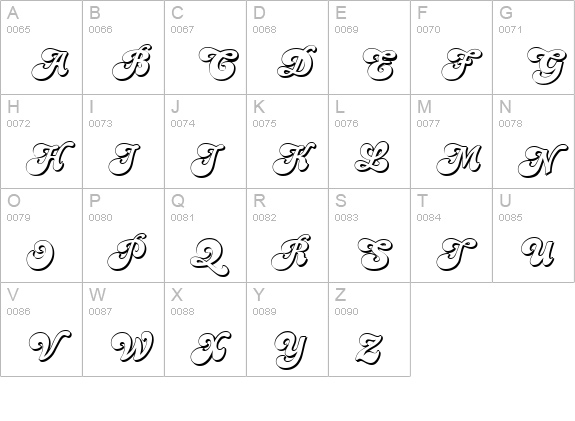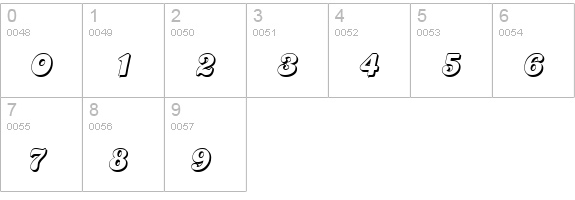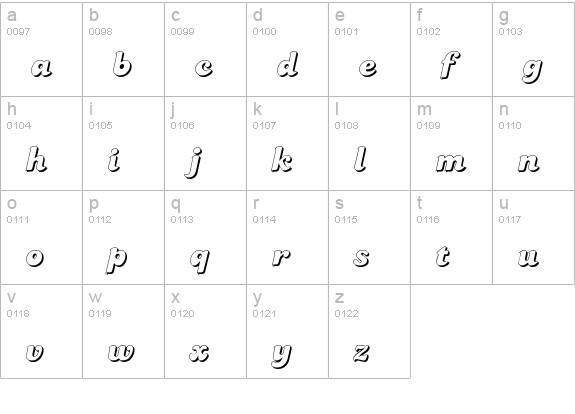
Picobello Font Details
Introducing Picobello font, a charming and versatile typeface that exudes elegance and sophistication. With its clean lines and modern appeal, Picobello is perfect for a wide range of design projects, from branding to editorial layouts. This beautiful font features a unique blend of classic and contemporary elements, making it suitable for both traditional and modern designs. Whether you're creating a logo, invitation, or website, Picobello will add a touch of refinement to your work. Best of all, Picobello is completely free to download at FontsMarket.com. So why wait? Add this stunning font to your collection today and elevate your designs to new heights of style and sophistication.